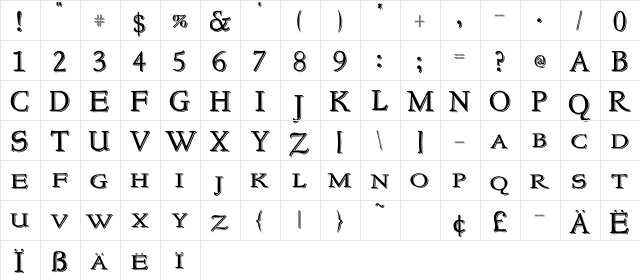
NewStyleSmallCaps Embossed Regular Font Preview
NewStyleSmallCaps Embossed Regular
Design Context for NewStyleSmallCaps Embossed Typeface
NewStyleSmallCaps Embossed is a composed and adaptable typeface that performs quietly and consistently across a wide range of design contexts.